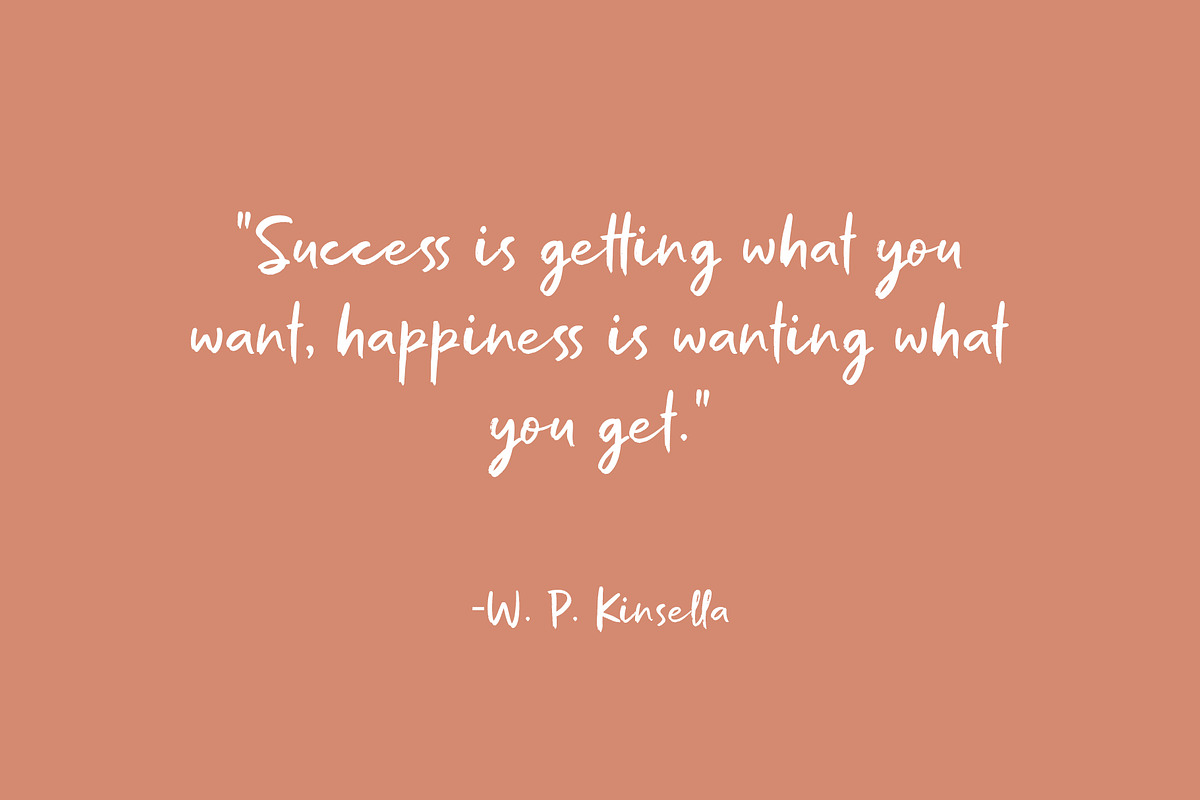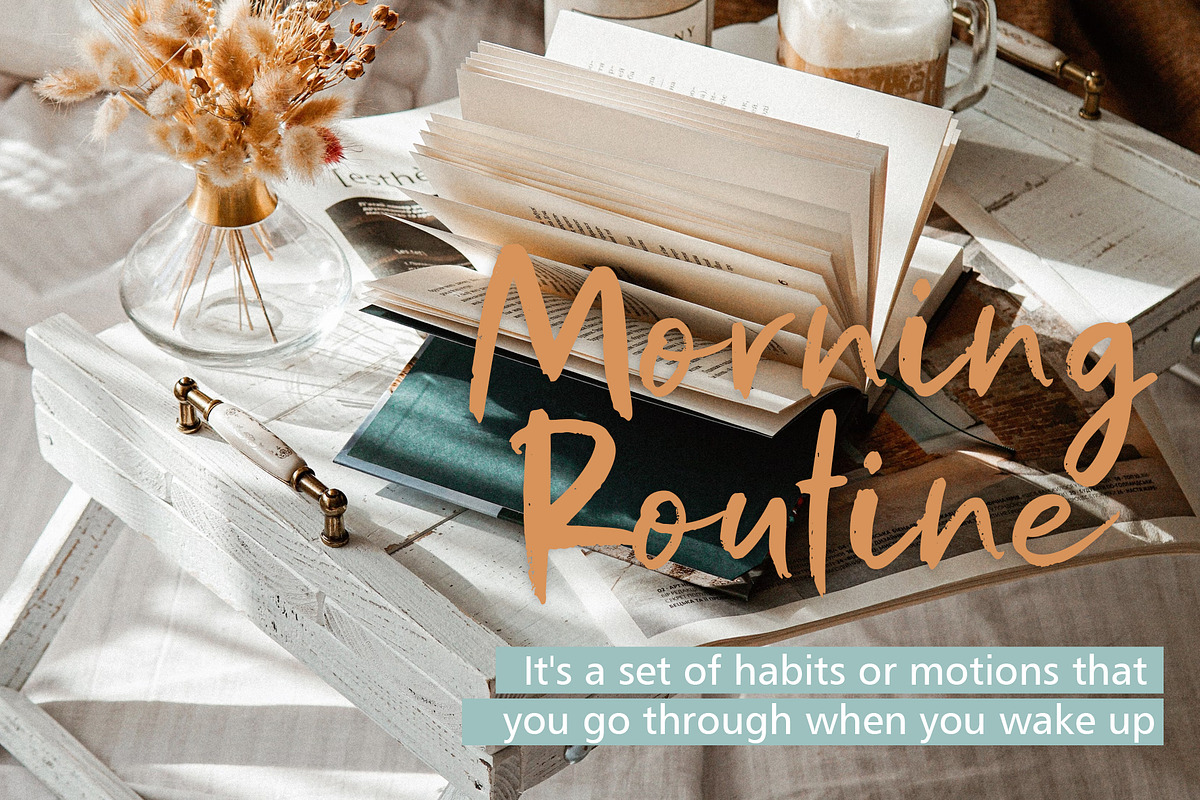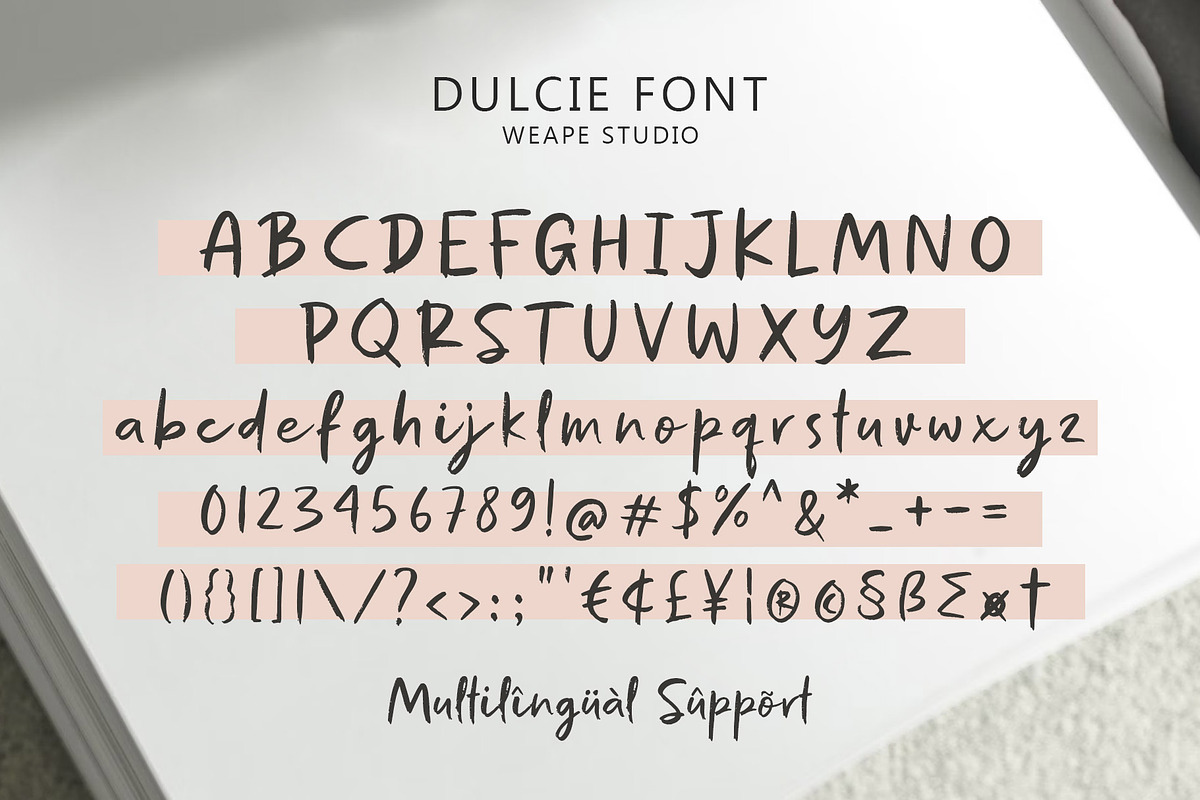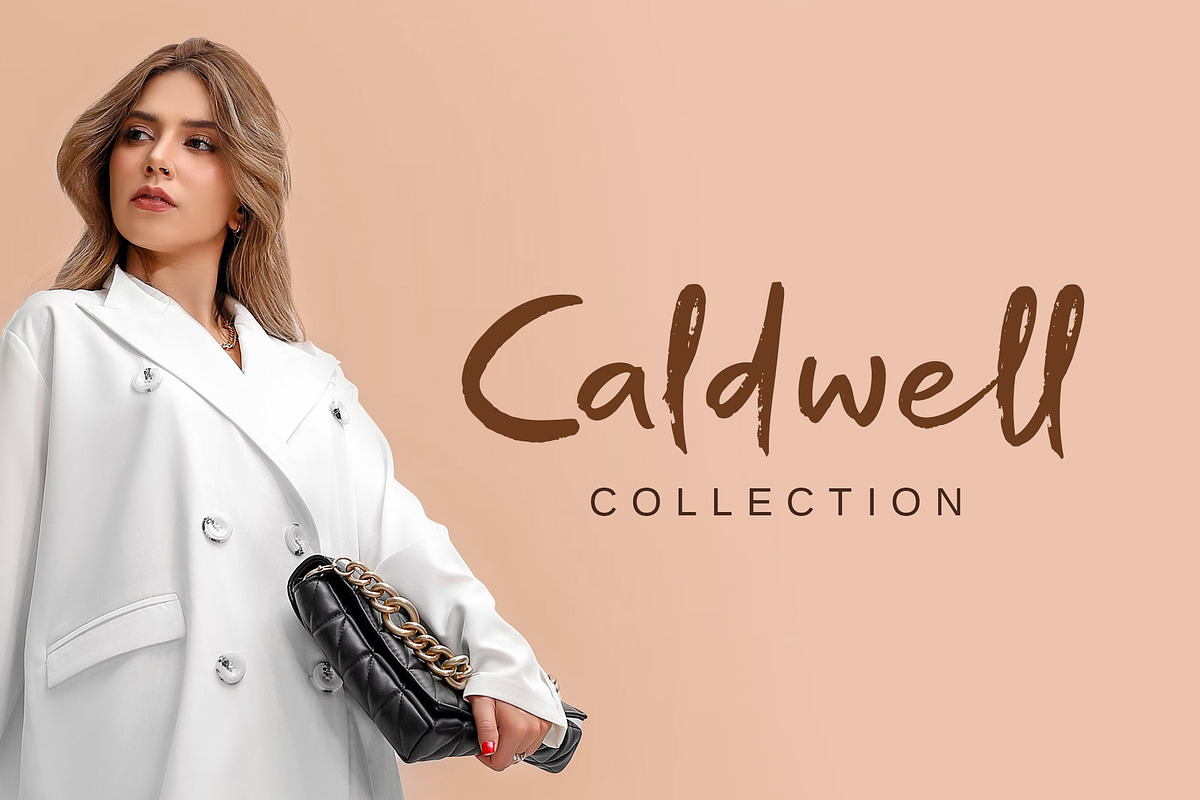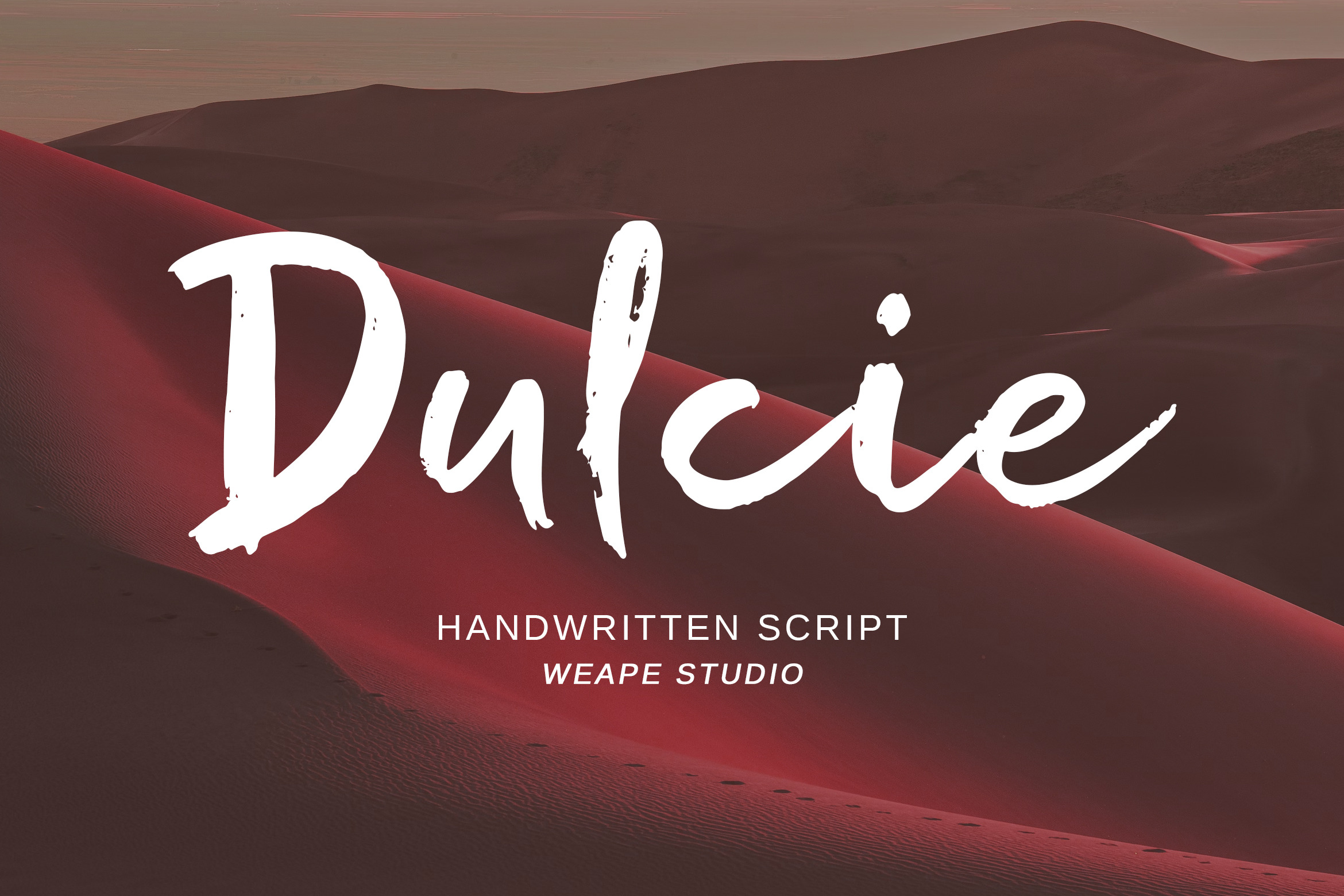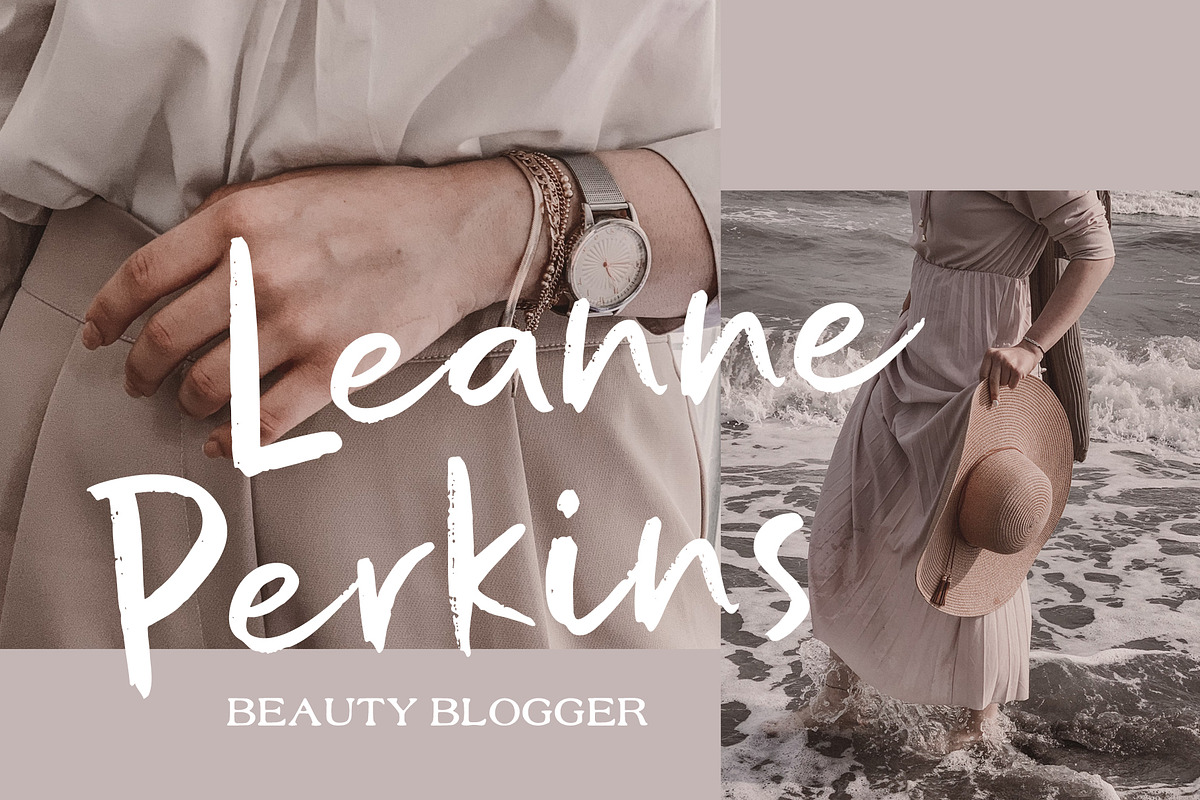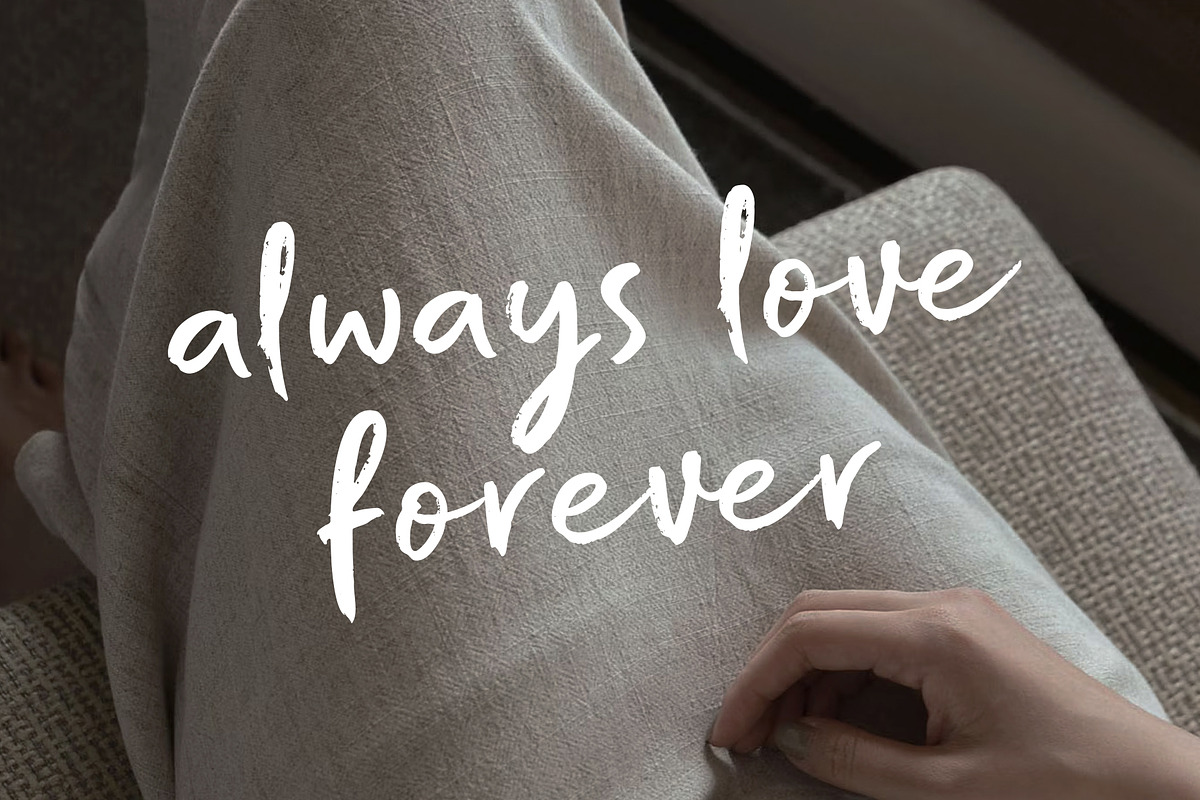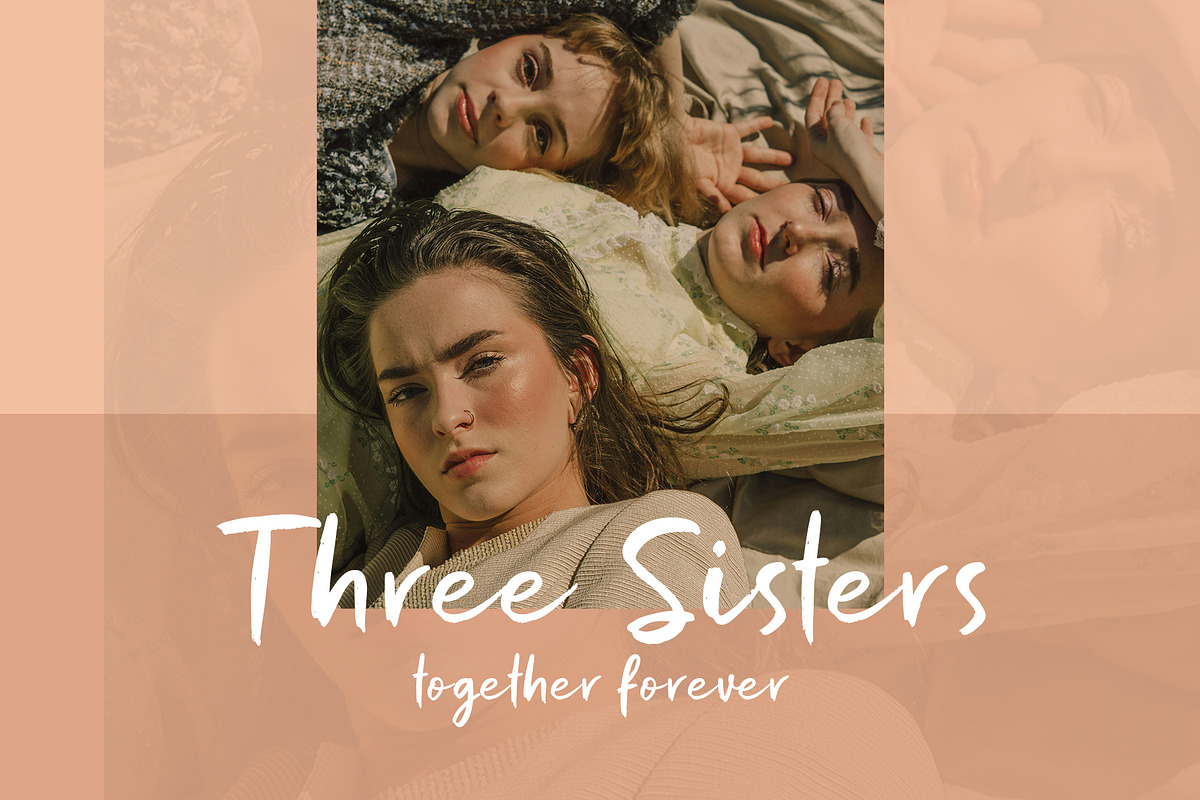
Dulcie - Handwritten Font
Introducing Dulcie- Handwritten Font, script with natural rough dry brush strokes, and the stroke of hand quickly. You can use and enjoy Dulcie, for anything from promotional material and handwritten quotes to product packaging, merchandise, and branding projects
And this font perfect for signature, branding, wedding, fashion, photography, title, poster, social media, book cover, packaging, handwritten quotes, greeting cards and advertising. You can create more easily with alternatives to each letter and make it as if you wrote it yourself.